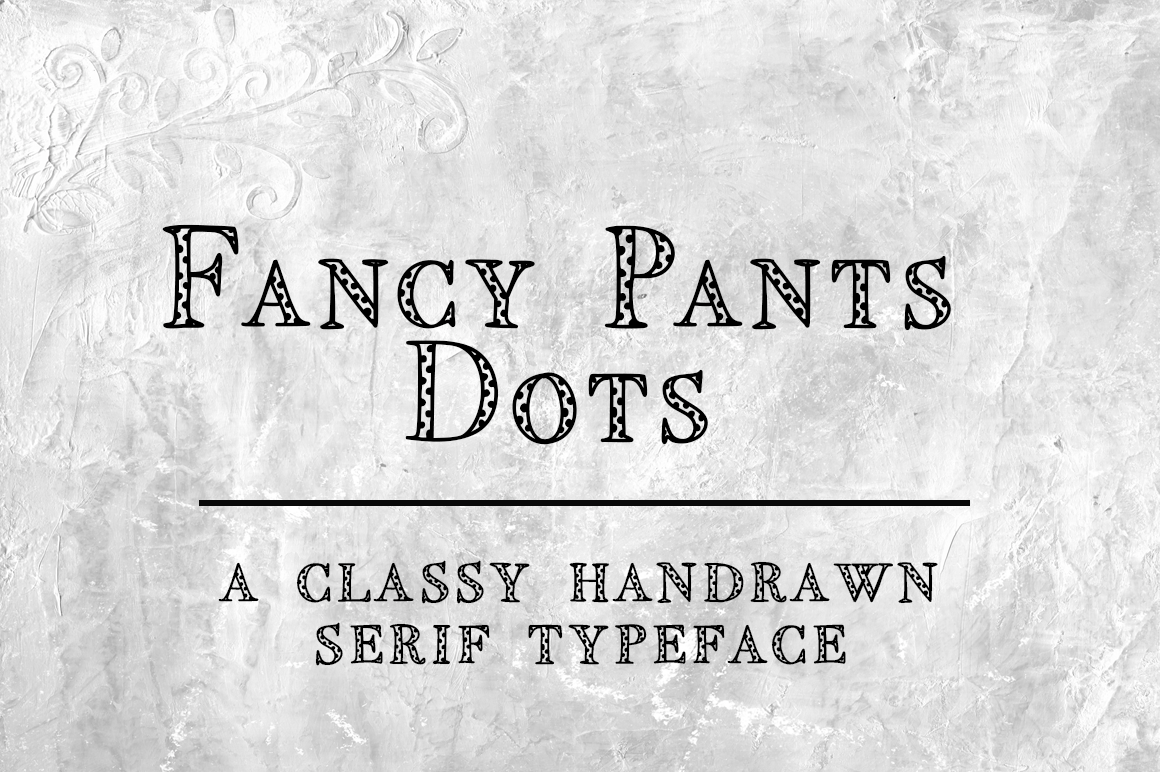
Fancy Pants Dots - Serif Typeface
Layer colors, patterns, textures over this font and impress all of your clients with a feminine chic font that raises the standard for handwritten fonts!This adorable handdrawn font is available to you today!